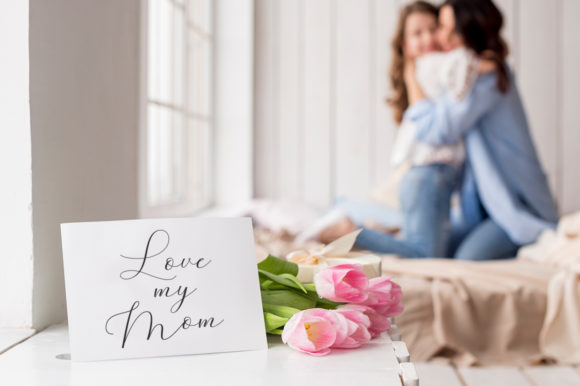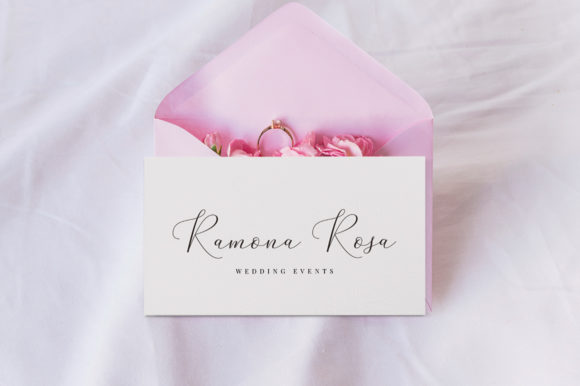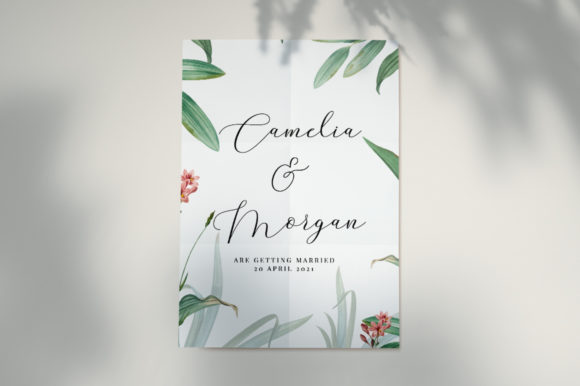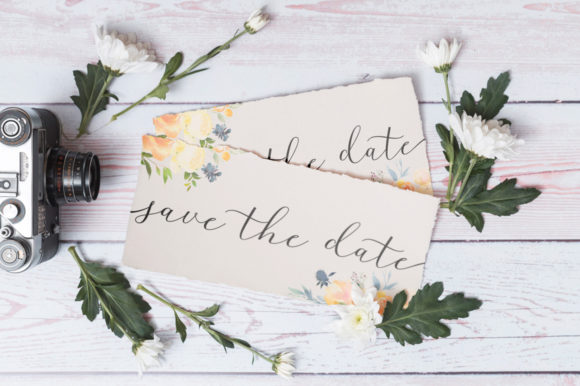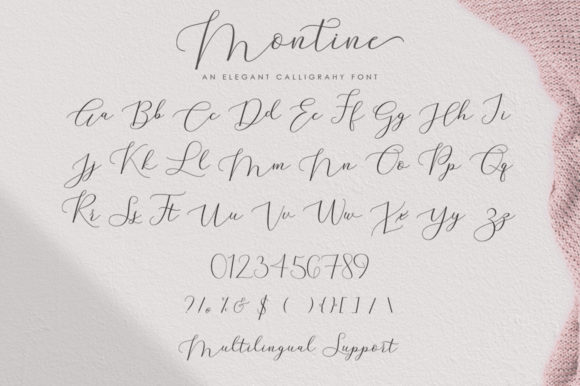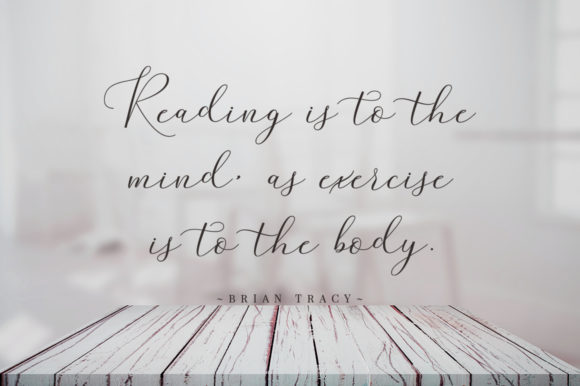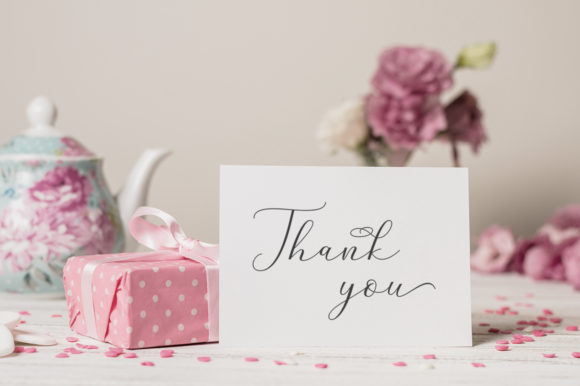
HomeScript FontsMontine Script Font Script Fonts Montine Script Font FacebookXPinterestWhatsApp Montine Script Font Poster 2 Montine Script Font Poster 3 Montine Script Font Poster 4 Montine Script Font Poster 5 Montine Script Font Poster 6 Montine Script Font Poster 7 Montine Script Font Poster 8 About Montine Script Font Inspired by modern calligraphy, Montine is a fun and cool handwritten font with a unique charm! DOWNLOAD ON CREATIVE FABRICAThis font is sold and delivered by Creative Fabrica. Font Canyon may earn a commission if you buy through this link. People also explored Abhinaya Bhama Font Giraffe Font Hanepoly Font Walnoty Font Australion Font Tile Star Font Tradesman Supaduper PB Daisy Love Font 358 0 TagsMontine Script Font Previous articleCynthia Script FontNext articleMisskah Font LEAVE A REPLY Cancel reply Comment: Please enter your comment! Name:* Please enter your name here Email:* You have entered an incorrect email address! Please enter your email address here Website: Save my name, email, and website in this browser for the next time I comment. Personal Use Free Ernesthuge Personal Use Free Read more about this font New Amsterdam Personal Use Free Read more about this font Aliqa Personal Use Free Read more about this font Anggiana Personal Use Free Read more about this font BLOG Best Fonts for YouTube Videos: Make Your Thumbnails Stand Out Best Fonts for YouTube Videos: Make Your Thumbnails Stand Out Choosing the right font can make a massive difference in how your YouTube videos perform.... Exploring Font Trends How to Install and Use Fonts on Windows, macOS, and Web Projects Elegant Wedding Invitation Fonts – Handwritten & Script Fonts